Small and mid-size non-profits generally work within tight budgets and put most of their money towards programming. Beyond adopting a simple logo, larger branding efforts aren’t always on their radar. But clear brand positioning is essential for non-profits to be visible. And that’s where Jane Androski and Emily Rye of Design Agency come in. Based in Pawtucket, RI, they design identity systems and brand strategy for non-profit organizations in the arts, culture, and education. So when Design Art Technology Massachusetts DATMA contacted Cyrus Highsmith, of Occupant Fonts, to design a logo for their newly formed organization, he suggested they bring Androski and Rye onboard too.
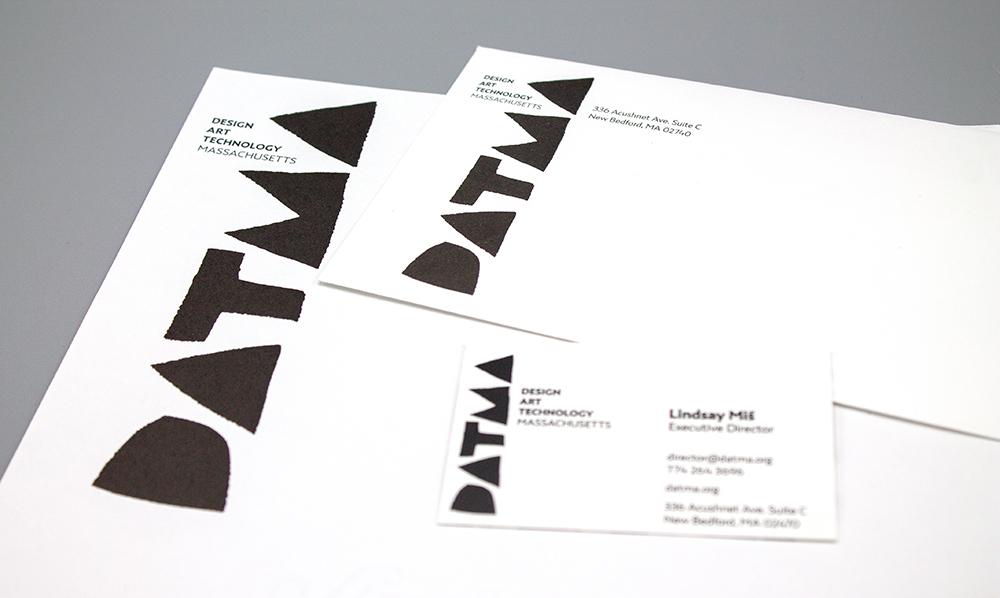
DATMA’s mission is making high-caliber art and design available to the public, so they needed an identity that would read as sophisticated, but still speak to as wide an audience as possible. As artists and educators, the board was interested in an aesthetic that would reference process, texture, and the sensibility of the hand-made mark.The challenge for Design Agency was to translate these qualities into a visual language that belonged to the art world, but also felt distinct and “a bit renegade.” Torn-paper, welcoming, accessible, and fun were keywords that anchored their design decisions.
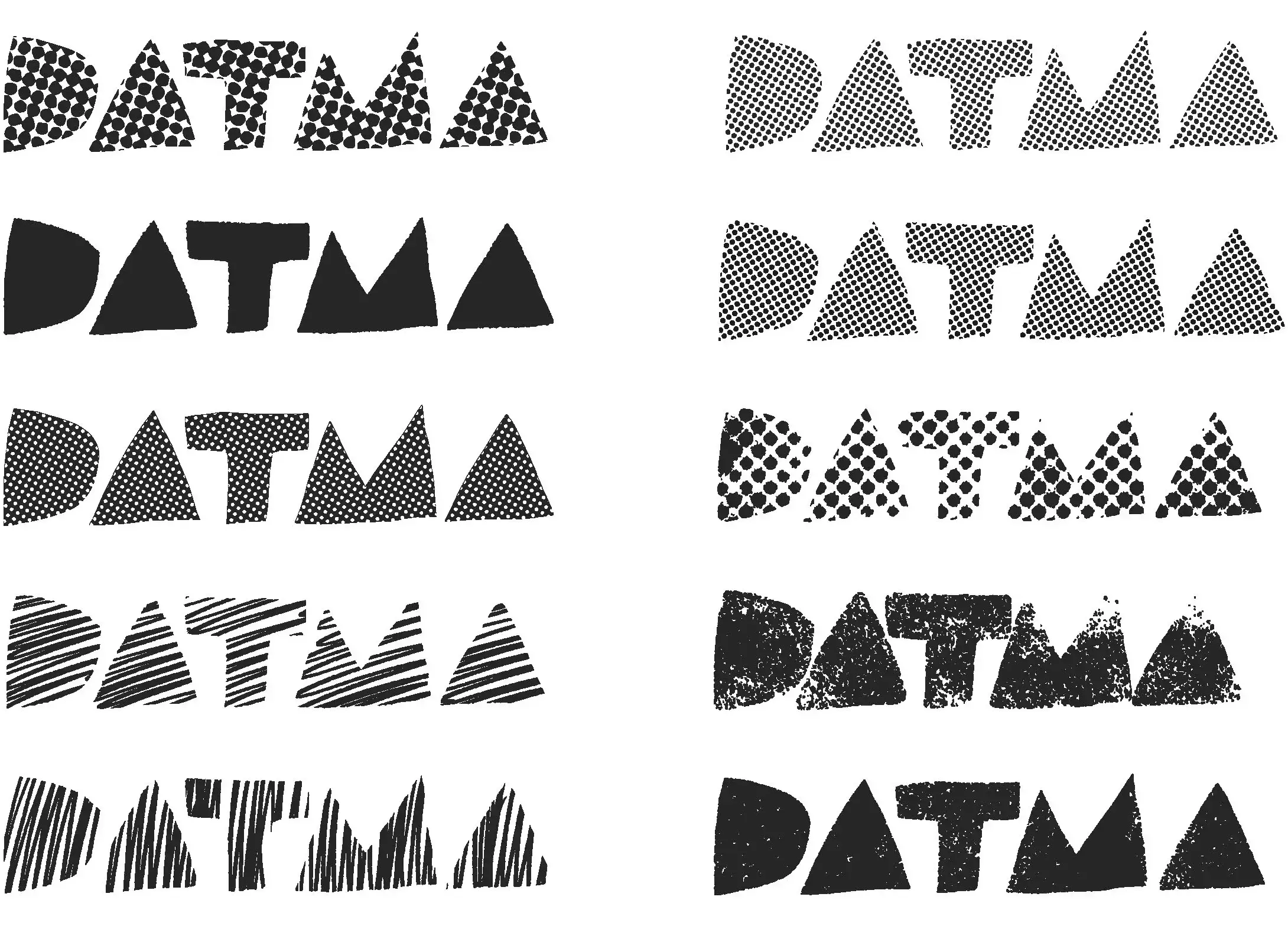
Design Agency used Allium to complement Highsmith’s wordmark for DATMA. As a humanist sans, Allium has the right kind of warmth and personable detail, with an openness that matches the organization's ethos. Androski and Rye find that some sans-serifs are too cold for their clients. Allium is “a little lighter and a little more approachable.” And as a recent release, Allium was an opportunity for the organization to speak in a fresh voice. For DATMA, the qualities of their logotype are also “fundamental to who they are.” That's why, Androski notes, “design is such a great process. It is strategy. It's not just surface design.”
Allium is a calm, practical design, drawn for headlines and deck sizes. Allium Text was drawn for use at small sizes. Highsmith named it after a genus of flowering plants that includes onions, leeks, and garlic.
Once DATMA committed to the logotype design, Design Agency began building out the rest of the identity system. They paired Allium with Quiosco, which lends gravity as a serif but feels related in its characterful details. Each typographic voice plays a role—Allium works well for web copy, and Quiosco for printed matter. Androski and Rye created a red and blue color palette, and worked with Highsmith to design a series of textures and patterns, along with rules about when and how these elements could be used together.
“Kiosk” in Spanish is Quiosco, also the name of a text family designed by Cyrus Highsmith that follows W.A. Dwiggins in deliberately contrasting character outline with the counter shape.
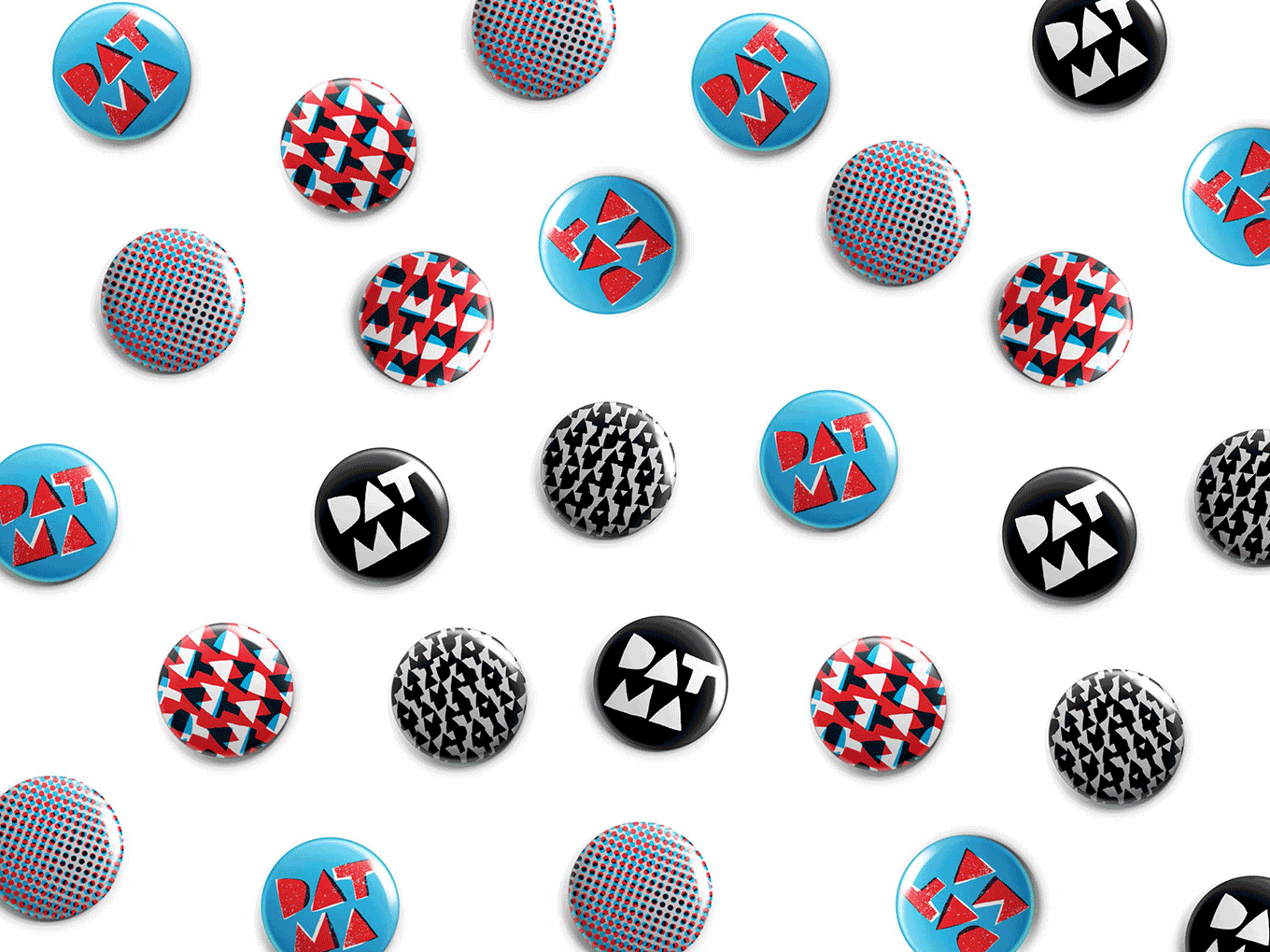
Everyone loves buttons! Rye and Androski had a lot of fun with things with Highsmith’s logo and marks.
Design Agency was conscious of DATMA’s positioning and knew that the identity system needed to accommodate multiple modes of address. They designed the core collateral (stationery, business cards) for DATMA in black and white to establish an institutional voice that fits in with the general visual language of high-end art institutions. Color is used for more public address — bright palettes are put into play for campaigns like DATMA’s upcoming Summer Winds exhibition, and for social media posts and merch like buttons, tees, and totes. According to Rye, their most common client-education moments are around typography. “If you can't get the typography right, it really doesn't matter what your logo is,” says Rye. Investing in fonts is something Design Agency encourages to establish a distinctive voice. A generic sans-serif “isn't going to share anything about your brand or what you're trying to communicate.”